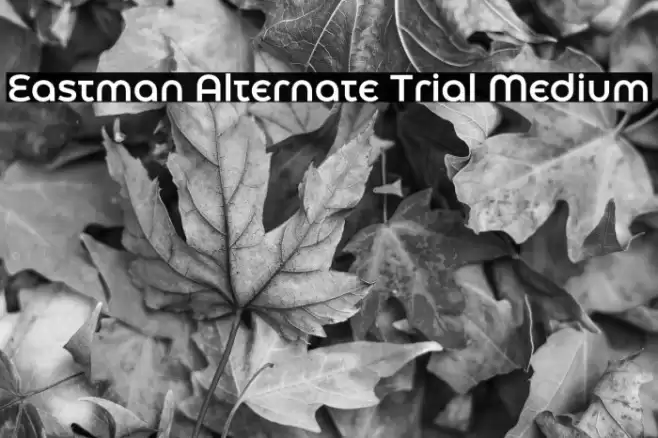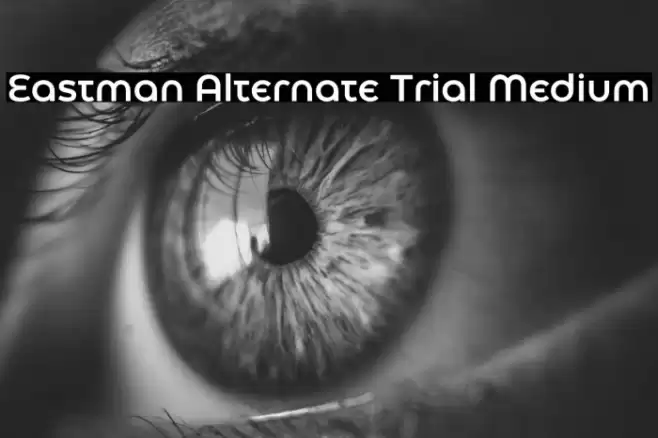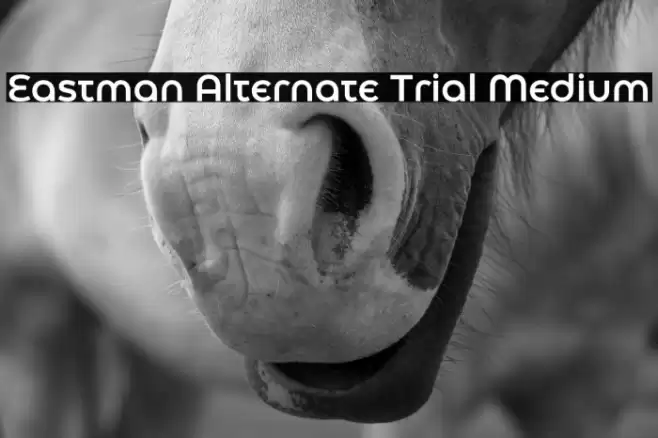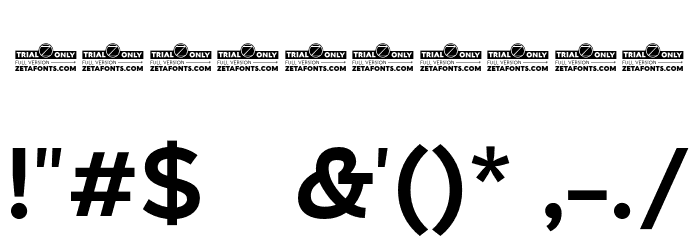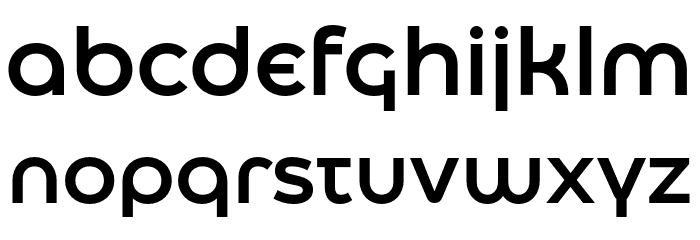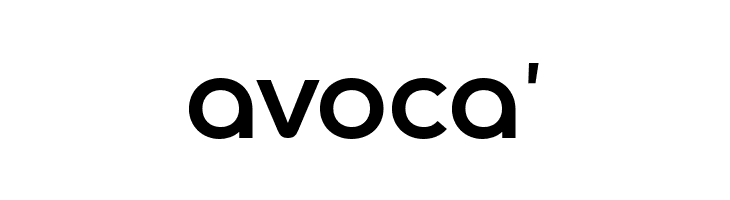
Eastman Alternate Trial Medium Font
Eastman Alternate Trial Medium Description
This font features a modern and clean sans-serif design with a geometric structure. The characters are well-balanced with a consistent stroke width, providing a harmonious appearance. The uppercase letters exhibit a strong presence with rounded edges, while the lowercase letters maintain a friendly and approachable look. The numerals are clear and easy to read, making them suitable for various applications. Special characters are included, enhancing the font's versatility. This typeface is ideal for projects that require a contemporary and professional aesthetic.
A modern, geometric sans-serif font with rounded edges and consistent stroke width from Uncategorized fonts.
- Proposed Projects: Ideal for branding, advertising, web design, and editorial projects that require a clean and modern look.